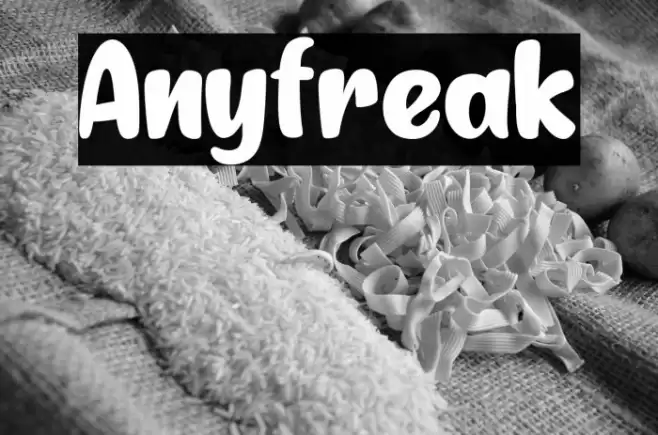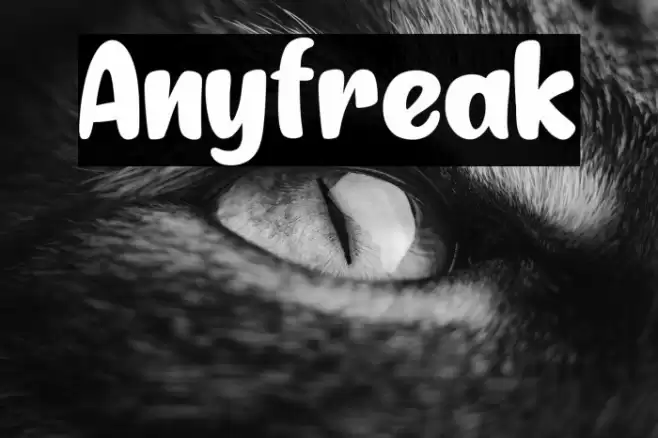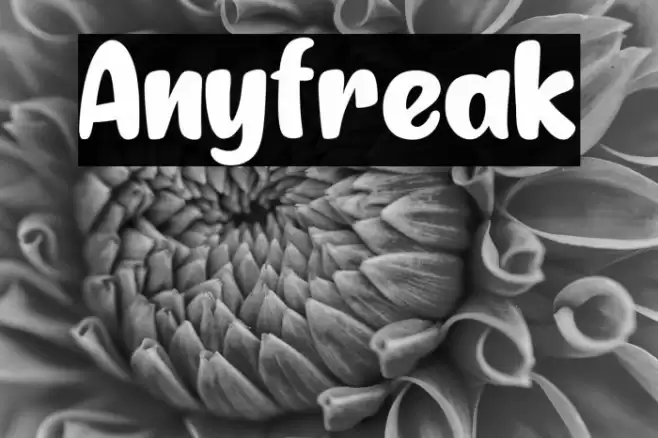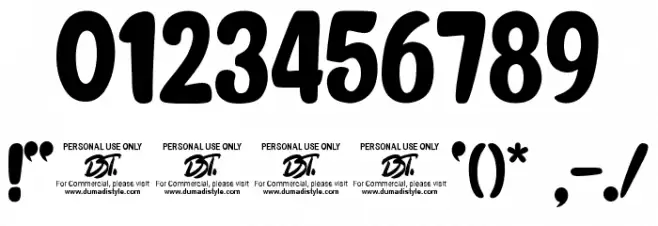
Anyfreak Font
Anyfreak Description
This playful and bold font features thick, rounded characters that convey a sense of fun and energy. The letters are uniformly wide with a slightly condensed appearance, giving them a compact and cohesive look. The font's high contrast between the thick strokes and the rounded edges enhances its legibility while maintaining a whimsical style. The numbers and special characters follow the same design principles, ensuring consistency across all elements. This font is ideal for projects that require a lively and engaging visual impact.
A bold, playful font with rounded, high-contrast characters from Uncategorized fonts.
- Proposed Projects: Ideal for children's books, playful branding, posters, and social media graphics.
- Overall Style: Playful